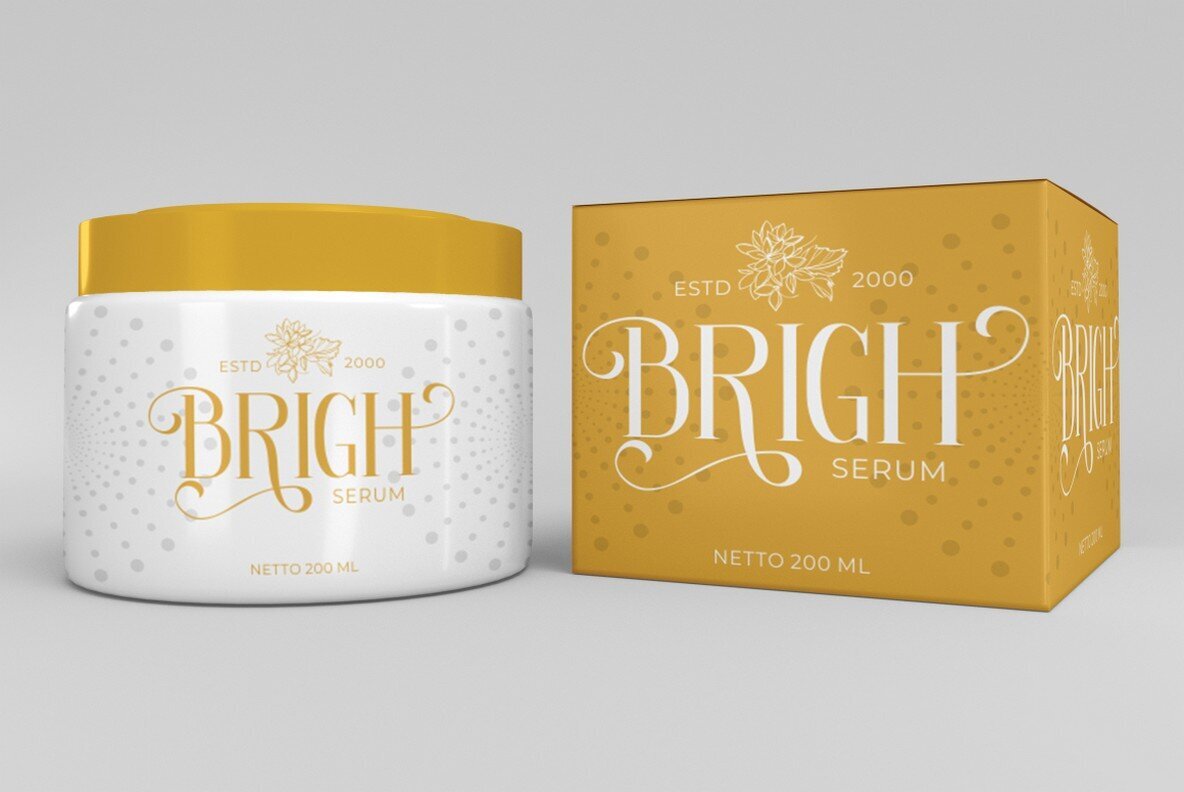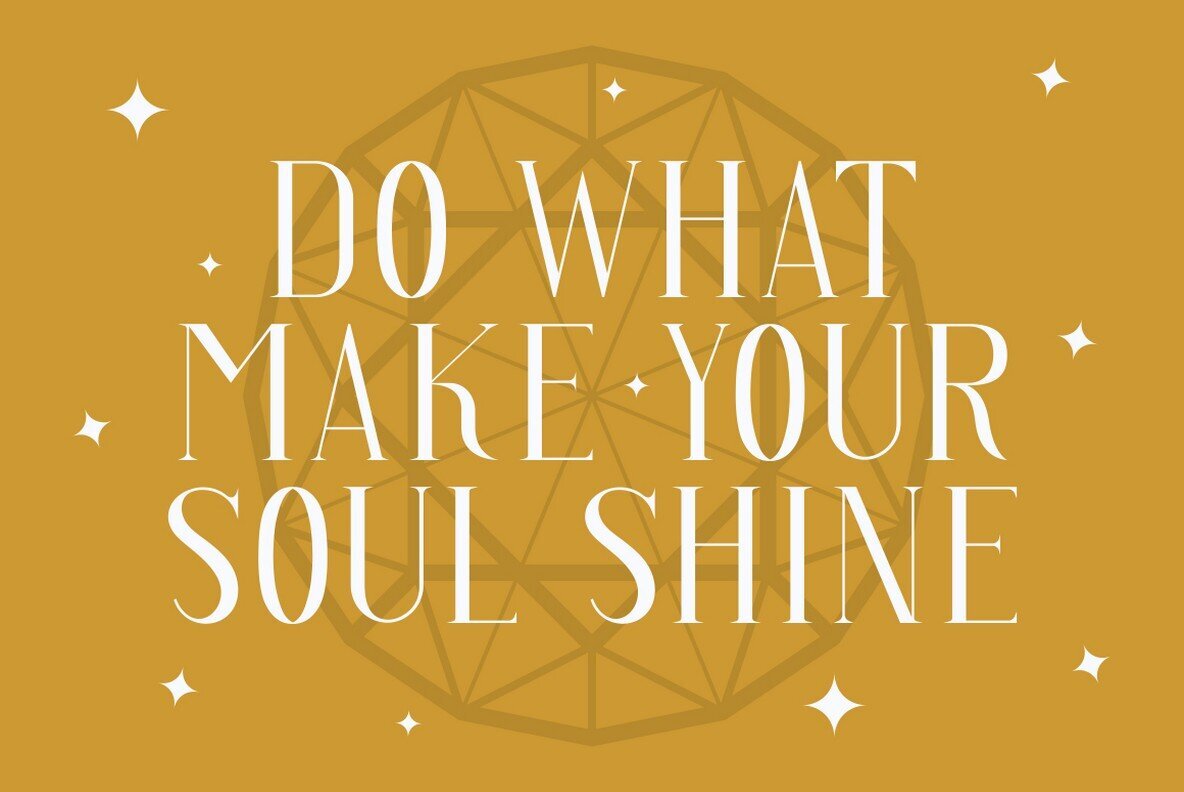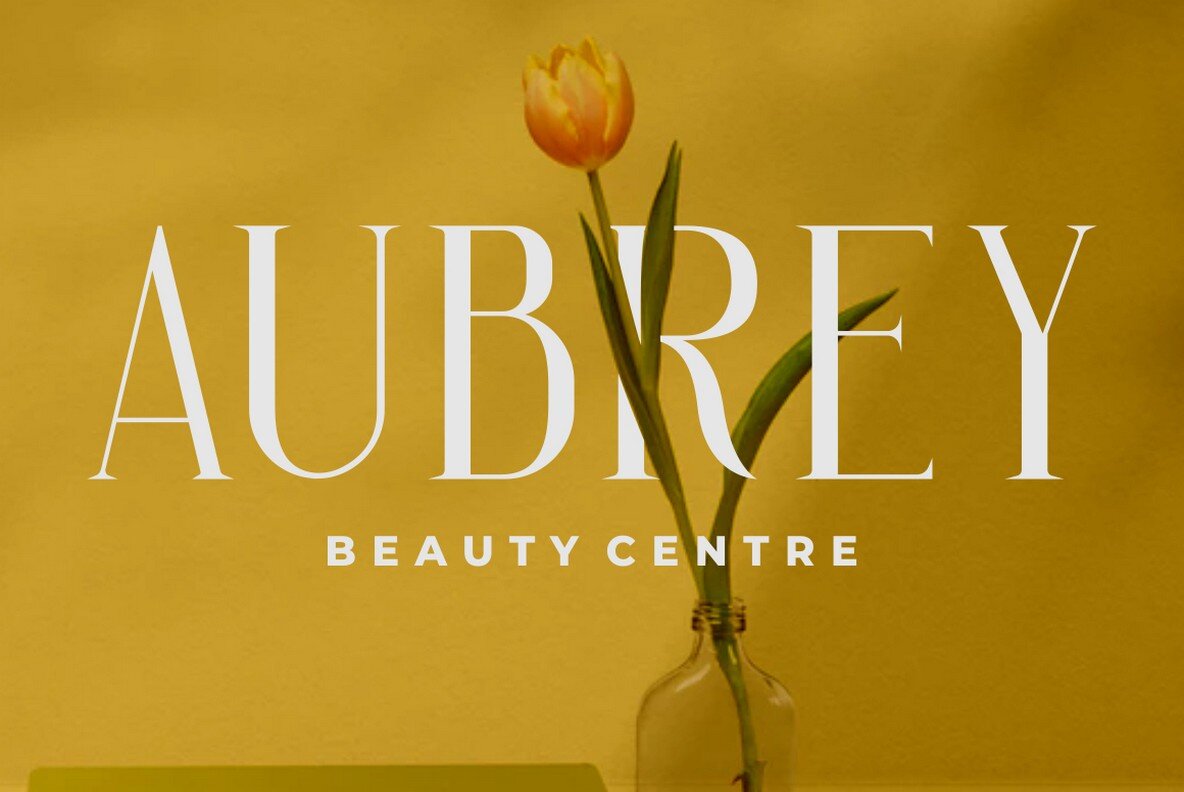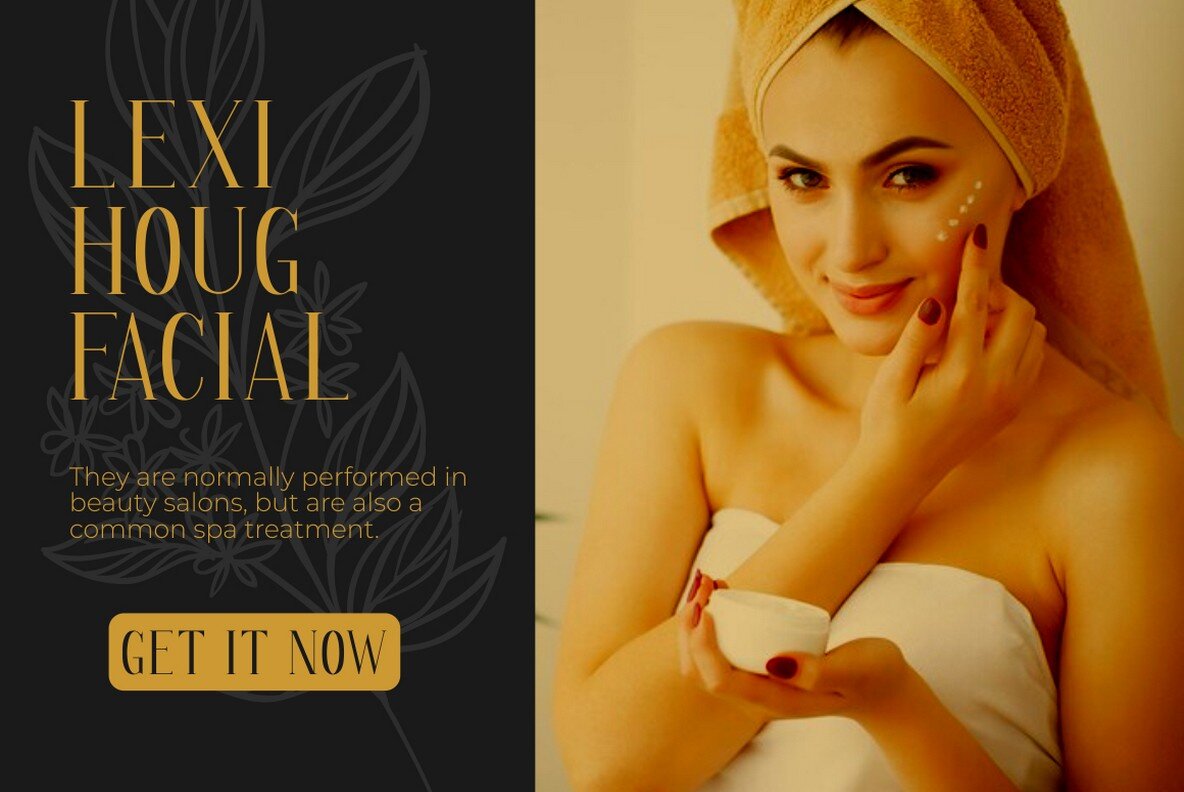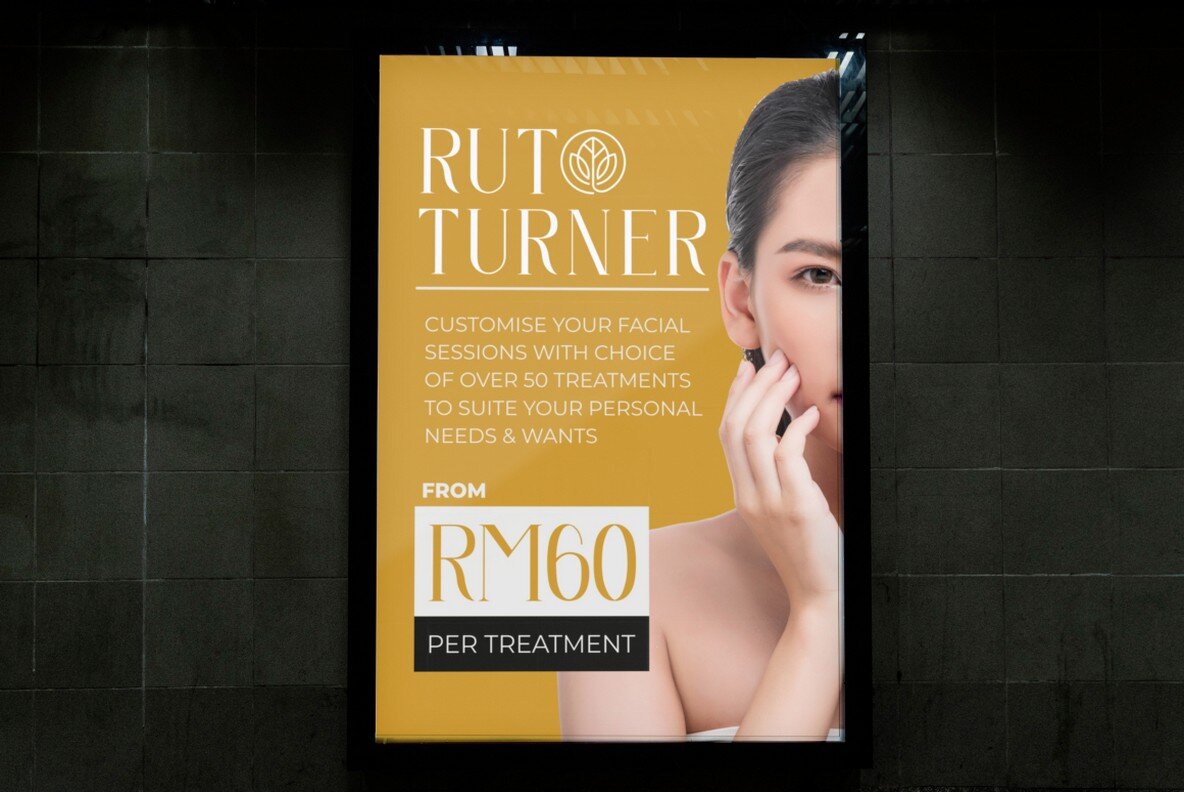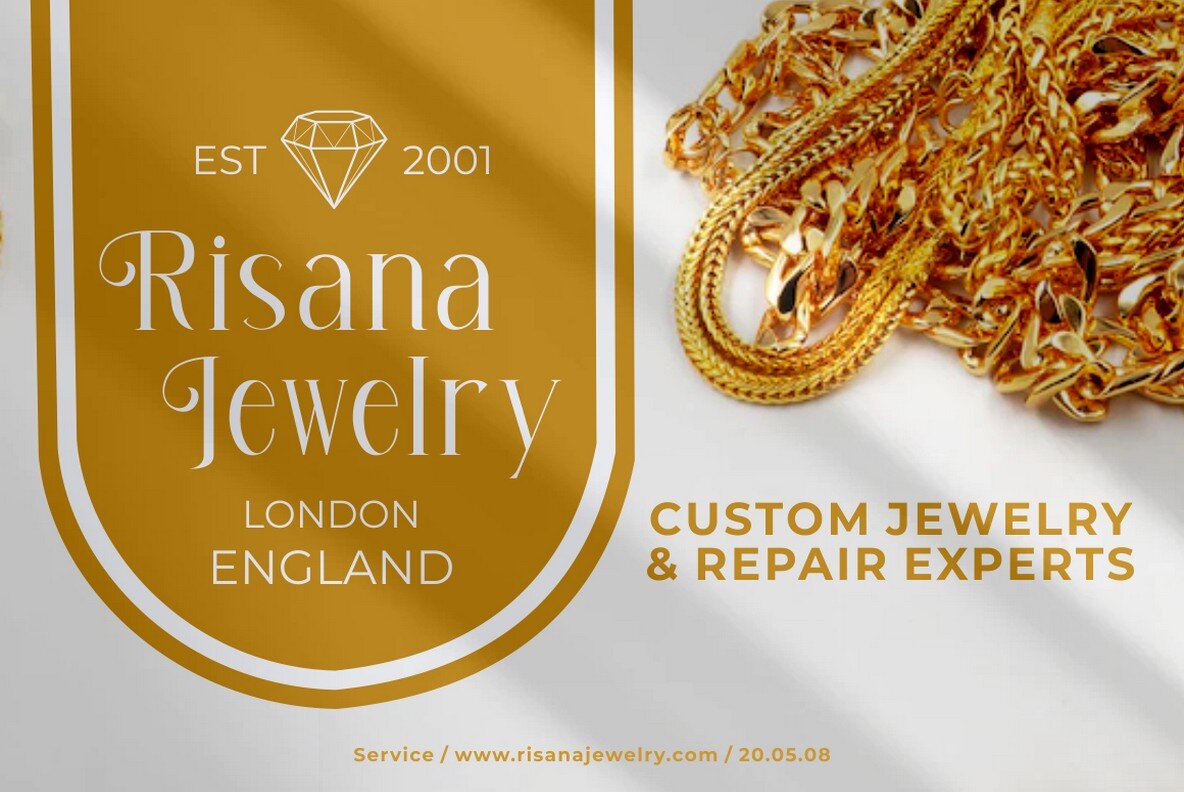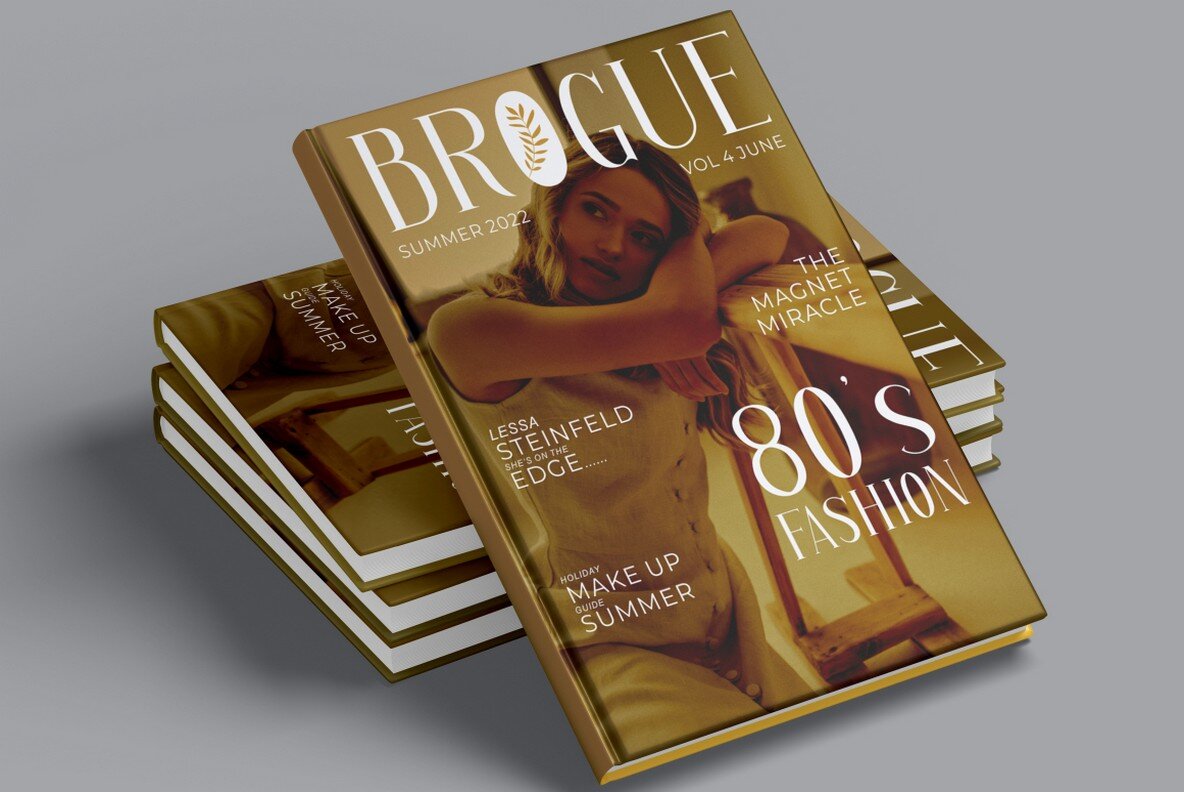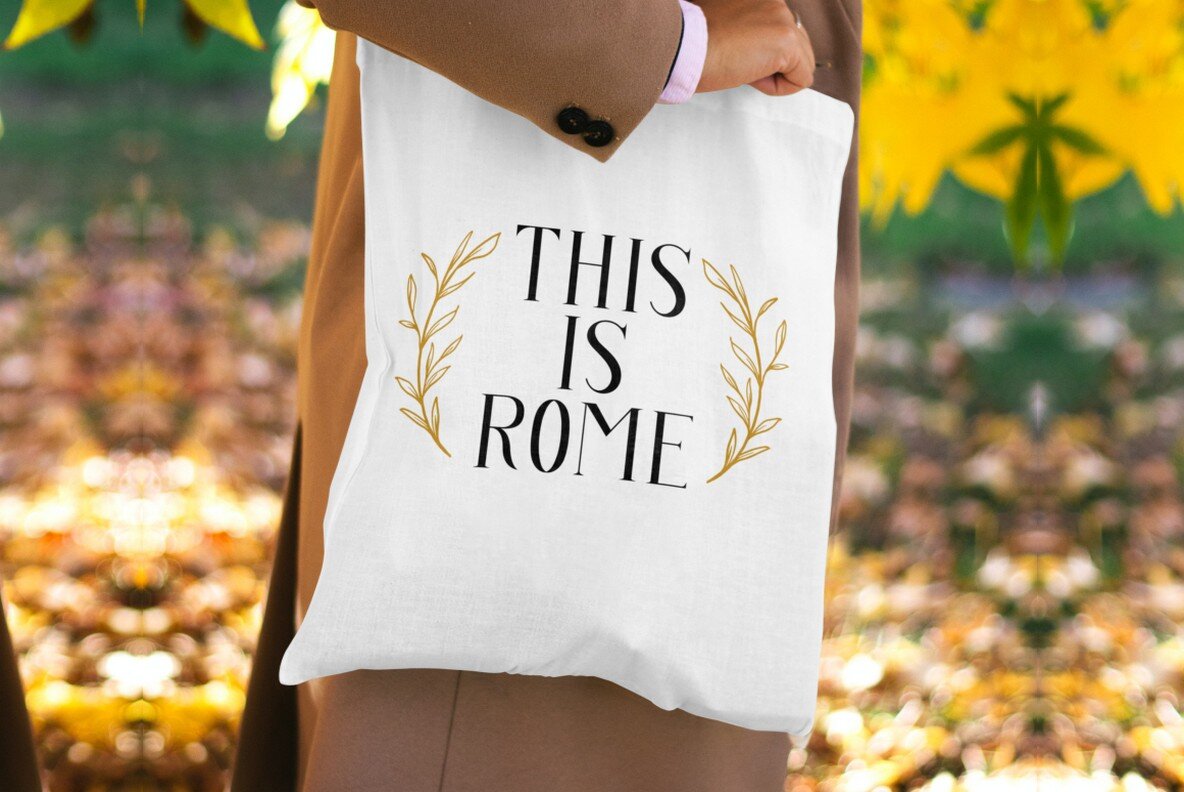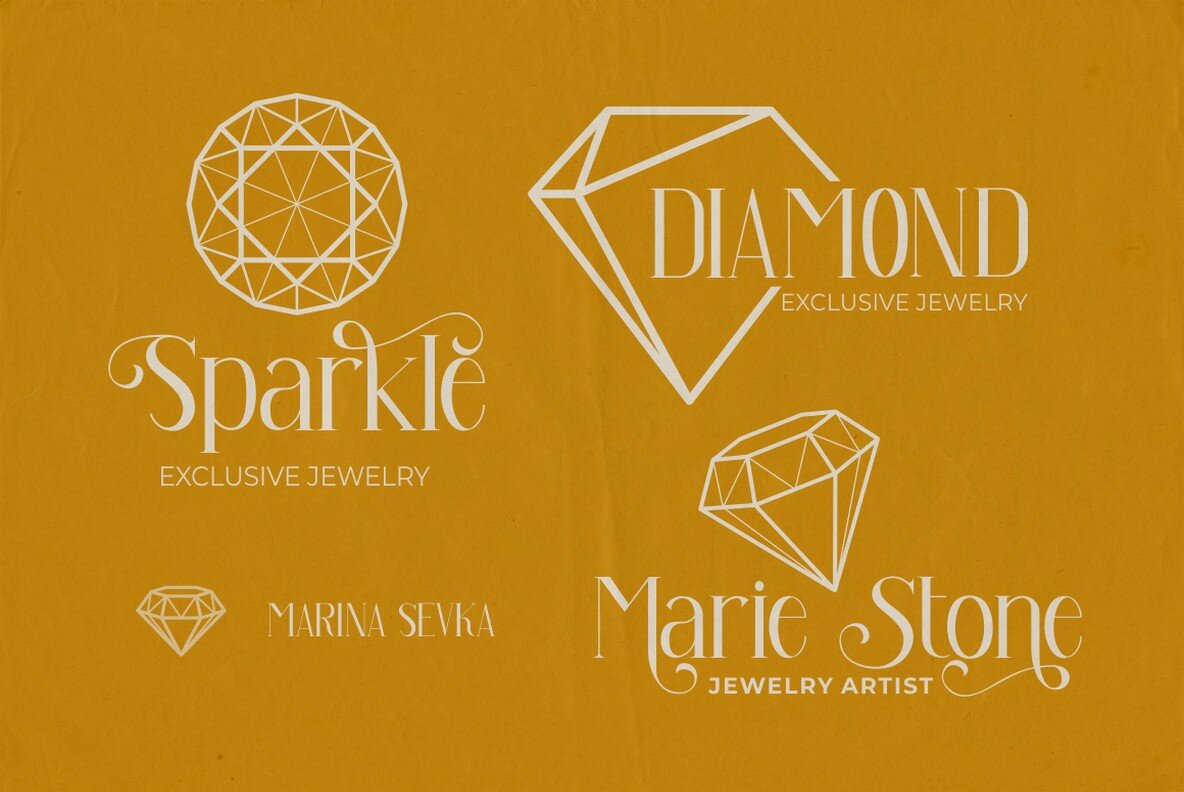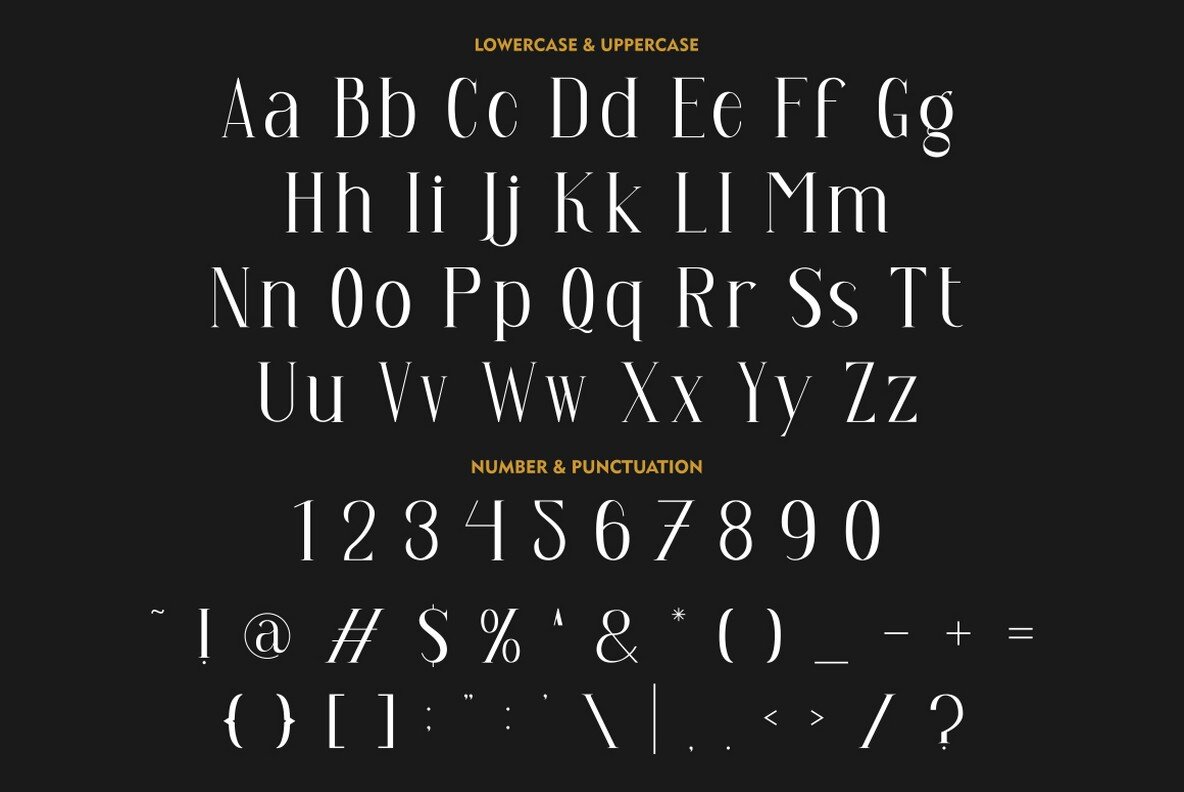
Arash Font
Arash Regular
Arash is a modern serif font that marries the elegance of vintage typography with contemporary design sensibilities. Drawing inspiration from classic posters, Arash provides extensive letter combinations, perfect for crafting unique typographic expressions. Designed to cater to a wide range of creative needs, this font brings versatility and style to any project. Whether you're designing a logotype, poster, or product packaging, Arash offers a sophisticated touch. It's equally at home in social media graphics, greeting cards, and merchandise design. With multi-language support, it's ready to enhance your international projects. To fully explore the font's alternate glyphs, you'll need graphic design software that supports OpenType features, such as Adobe Illustrator or Photoshop. Unleash your creativity with Arash and elevate your designs to new heights.Arash: Vintage Meets Modern in Serif Design